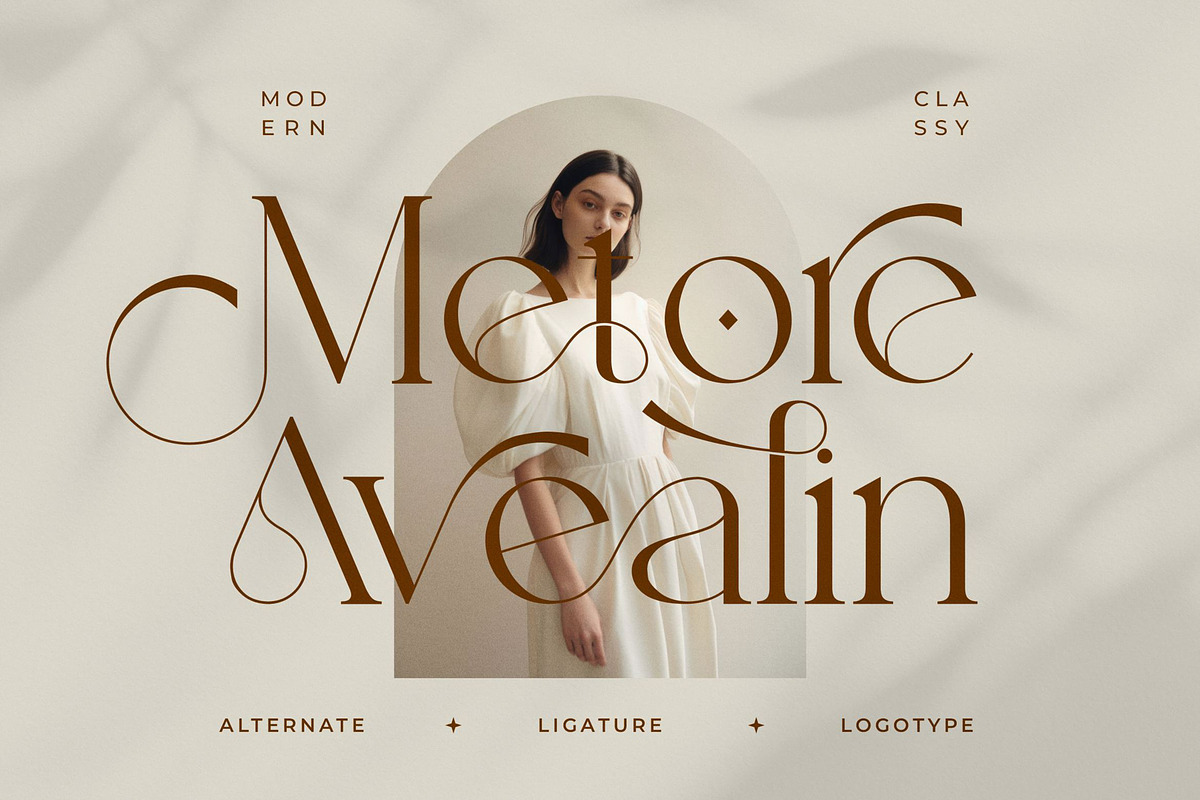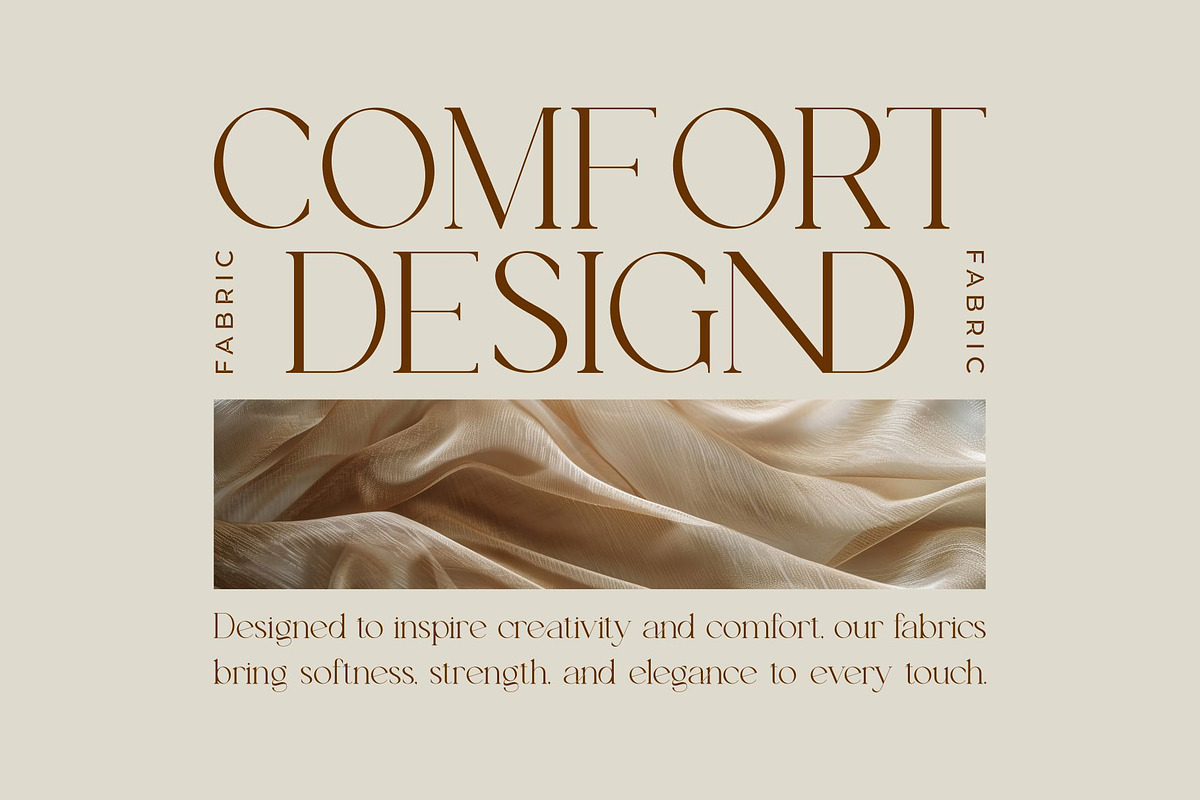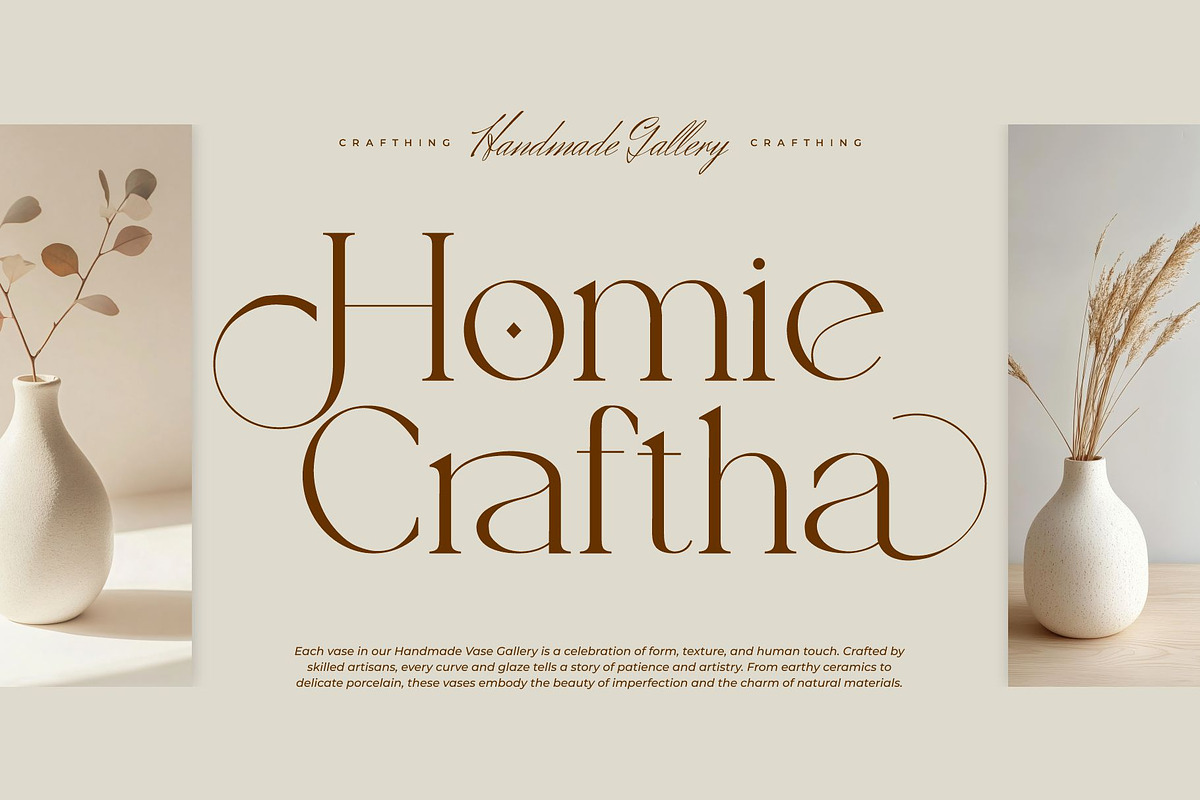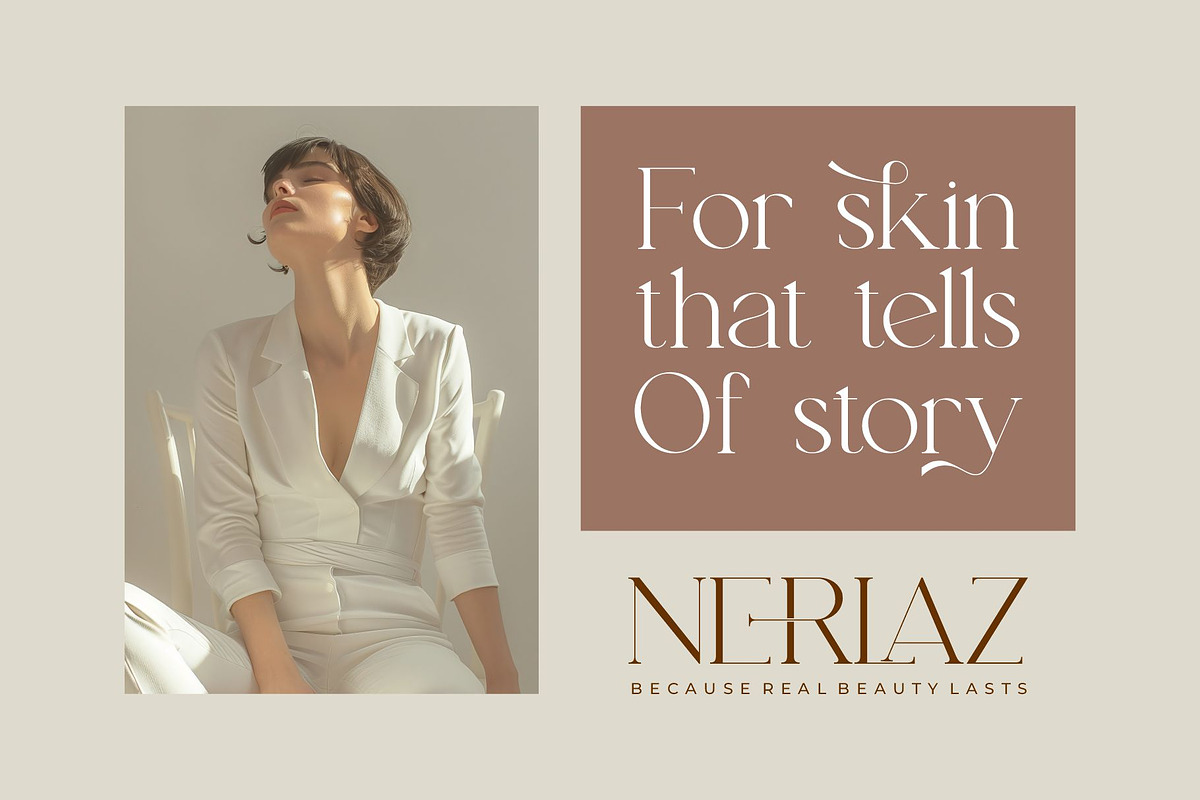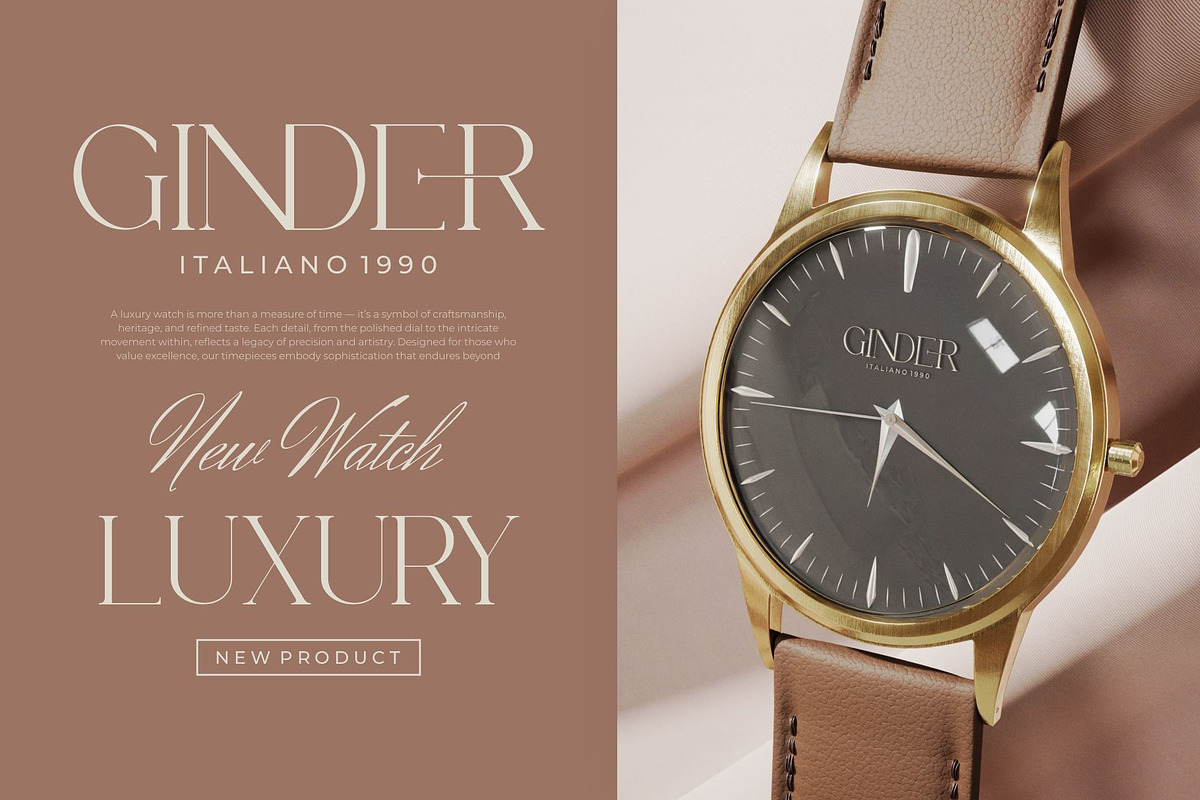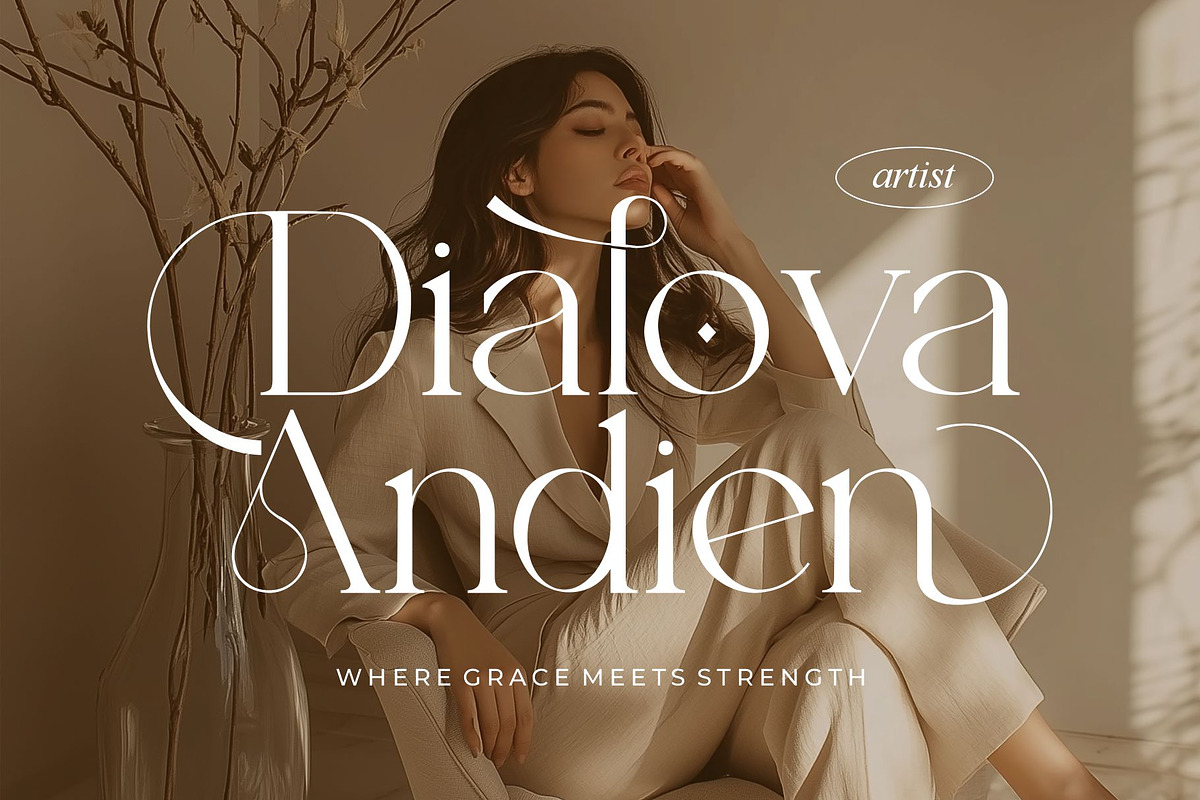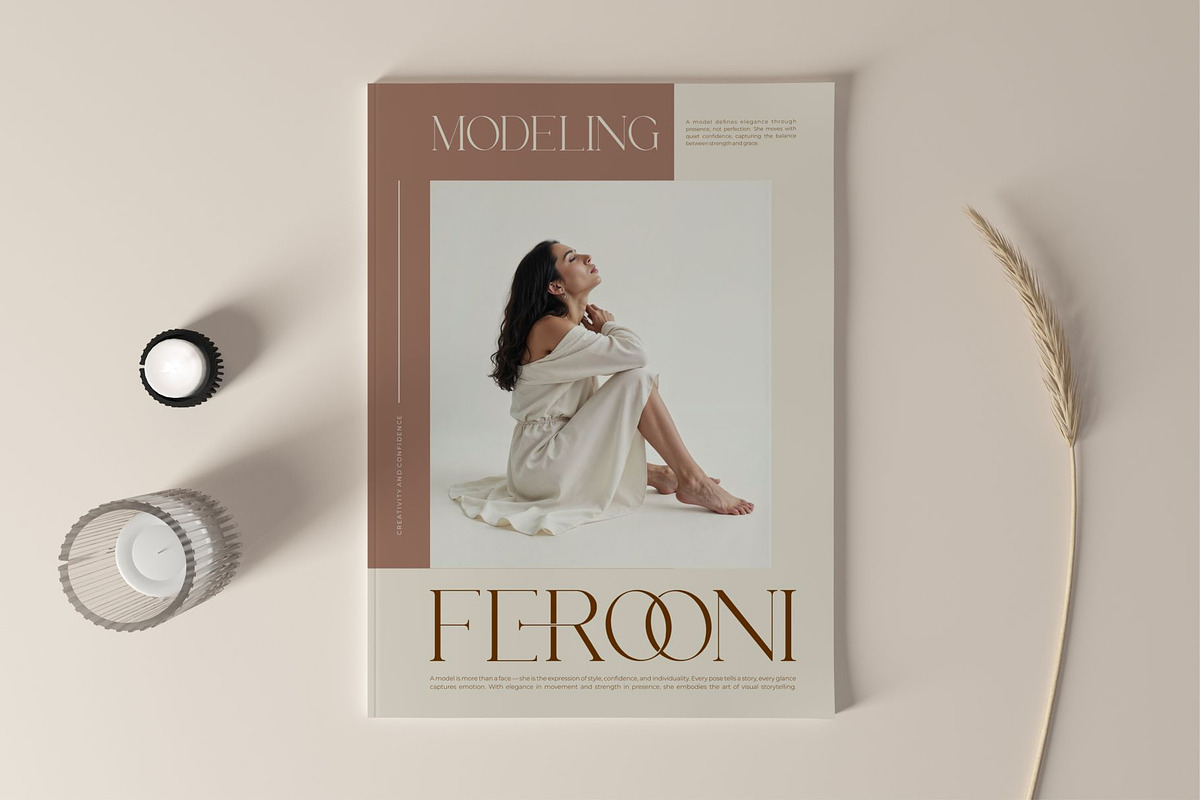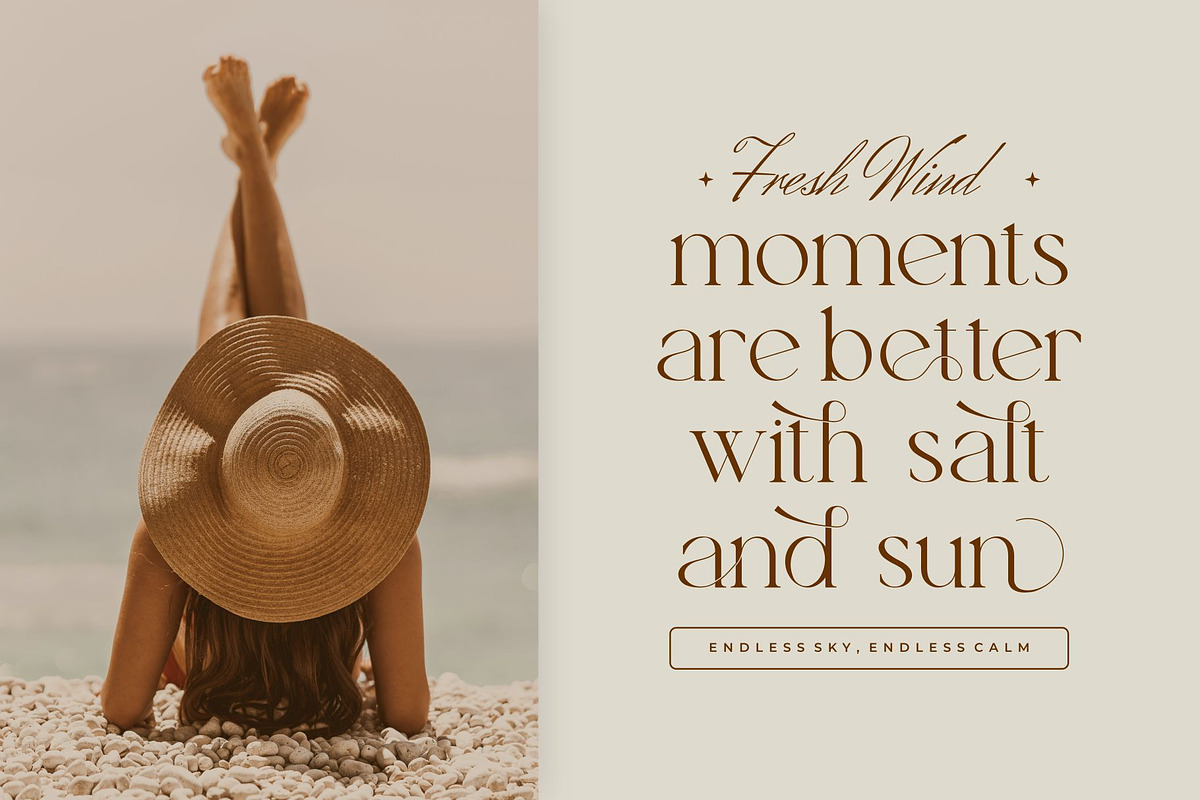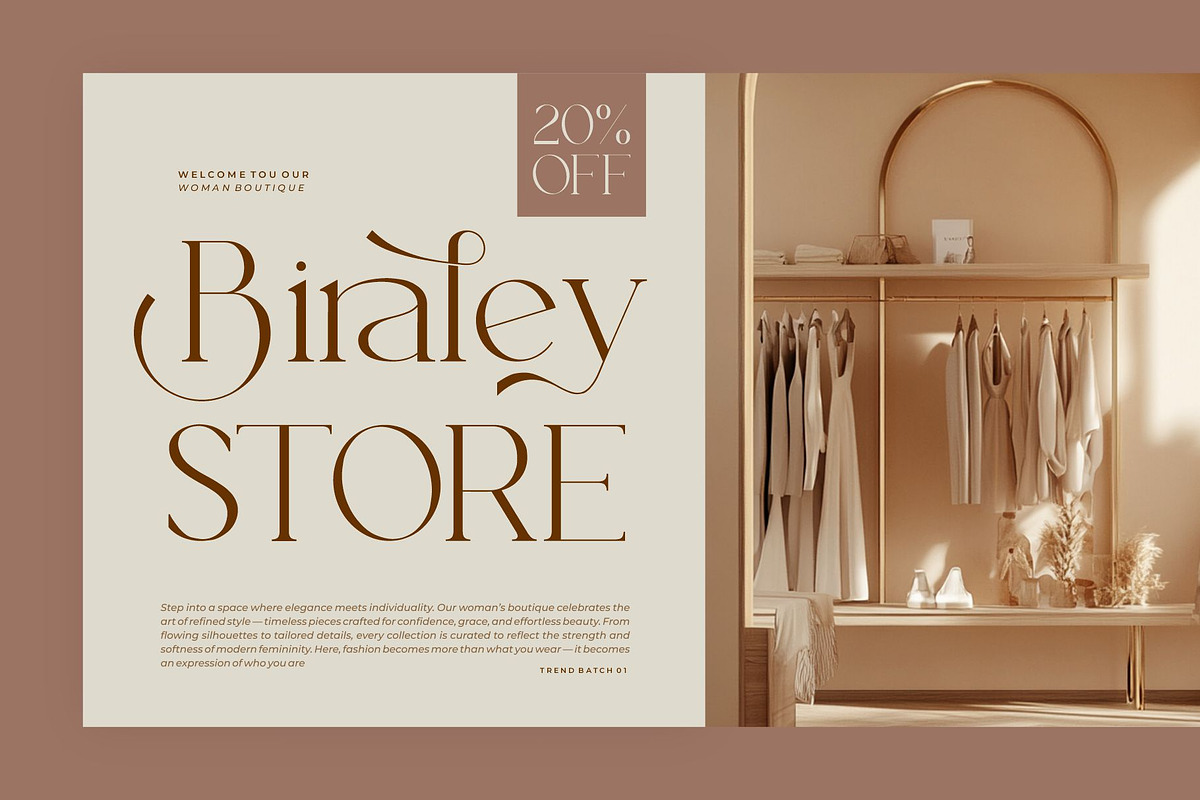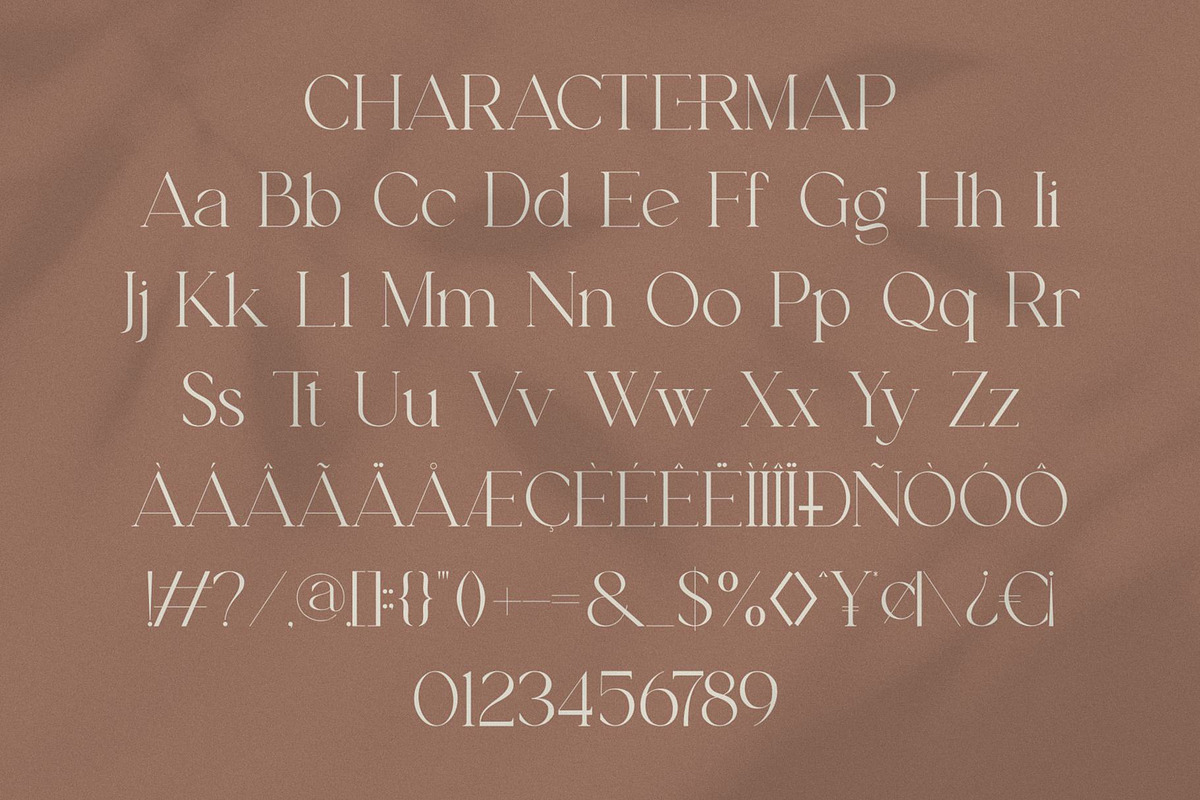
Metore Avealin || Minimalist Serif
Metore Avealin Serif is a modern and minimalist font type for all branding and logo designs. This modern and minimalist Serif font has a beautiful character. This font is suitable for invitation card designs, cool logos, movie titles, movie names, business cards, book titles, brand names, and various other designs. Metore Avealin Serif is a smooth serif font that exudes sophistication and the moment. Its stylish ligatures and alternates make this font a perfect partner for any project.
- Ligature & Alternate